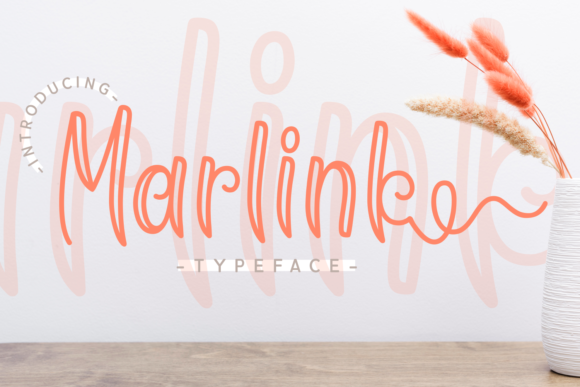
Journey to a Realm of Elegance with Marlink Font: Where Creativity Blossoms and Designs Enchant
In a world where beauty captivates and uniqueness reigns, Marlink Font emerges as a symphony of handwritten artistry, ready to transform your creative visions into breathtaking realities. With its captivating strokes and enchanting charm, Marlink is the ideal companion for those seeking to make a lasting impression.
Step into the realm of Marlink, where emotions find their voice and stories unfold with grace. This exquisite script font, crafted with meticulous attention to detail, dances across your designs like a whisper of elegance. Its varying baseline, smooth lines, and gorgeous glyphs create a visual tapestry that is both mesmerizing and captivating.
With Marlink as your creative ally, you'll embark on a journey of artistic expression, leaving a trail of beauty in your wake. Wedding invitations, thank you cards, quotes, greeting cards, logos, business cards—every design project becomes a canvas upon which your creativity flourishes.
Unleash the power of Marlink's PUA encoding, granting you effortless access to a treasure trove of glyphs and swashes. With this font, customization knows no bounds, as you weave your words into works of art, each letter a testament to your impeccable taste.
Marlink's allure lies in its versatility, adapting seamlessly to a myriad of design styles. Whether you seek the timeless elegance of a classic script or the whimsical charm of a modern twist, Marlink effortlessly transforms your ideas into visual masterpieces.
Join the ranks of discerning designers who have discovered the magic of Marlink, allowing their creations to shine with an aura of sophistication and grace. Let your imagination soar as you explore the limitless possibilities that await, knowing that with Marlink by your side, your designs will forever carry the mark of distinction.